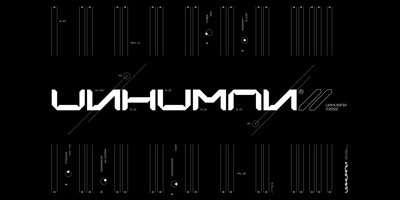
Unhuman
Unhuman font
Unhuman Font Family was designed by Maksymilian Górski and published by AN Studio. Unhuman contains 1 styles and family package options. Inspired by a futuristic cyberpunk and Neo-Tokyo vibe, UNHUMAN is a typeface that embodies the essence of technology and innovation. With its simple shapes and wide form featuring 45° cuts, this font brings a sleek and hi-tech aesthetic to your designs. Created by AN Górski, UNHUMAN is the perfect choice for projects that require a modern and cutting-edge look.**Uppercase